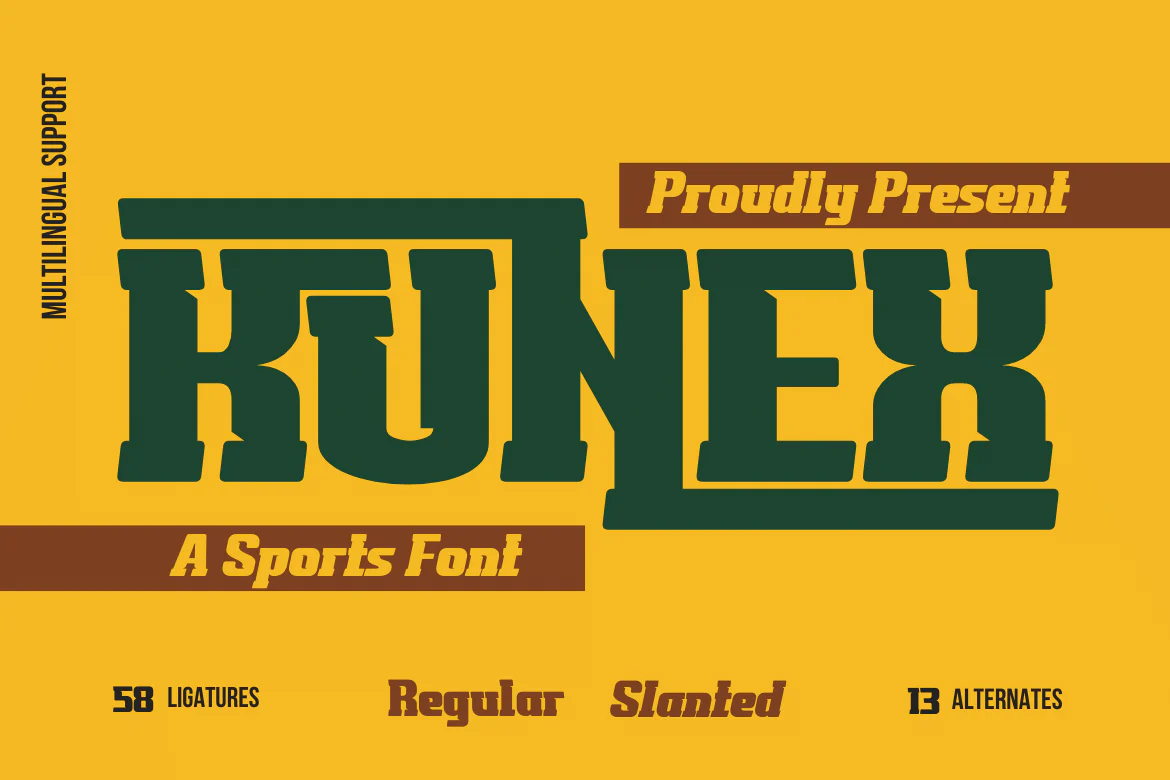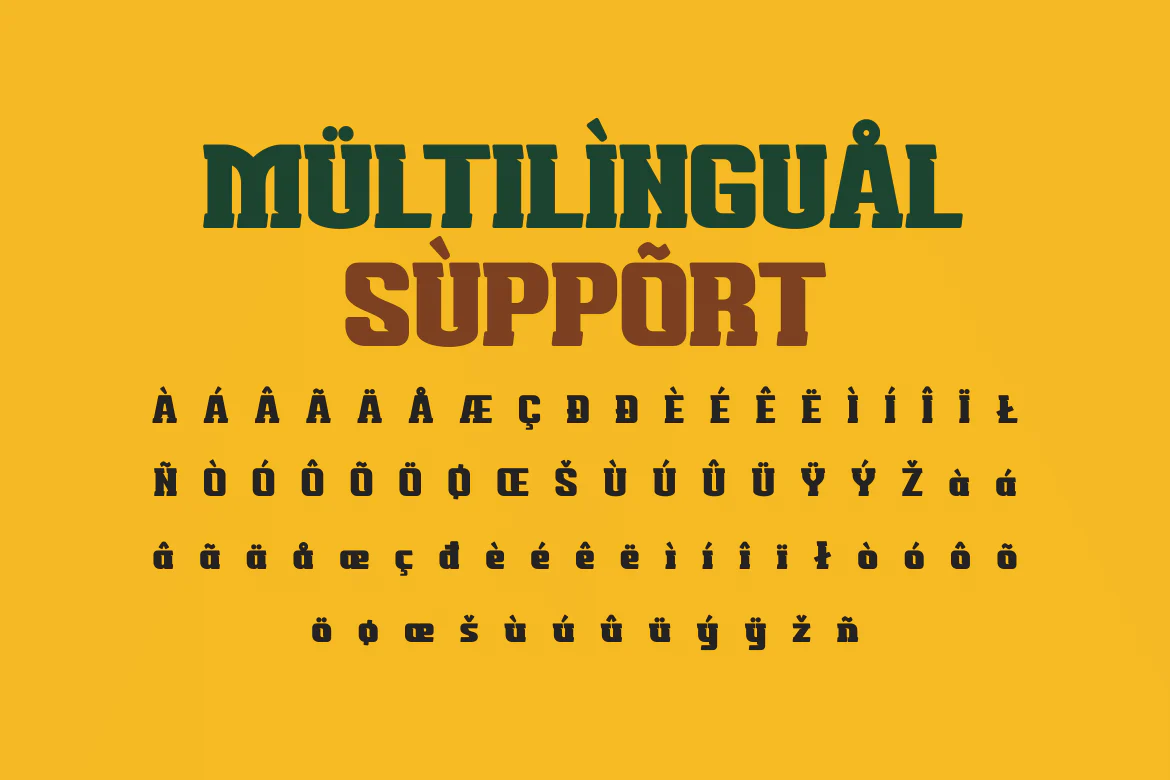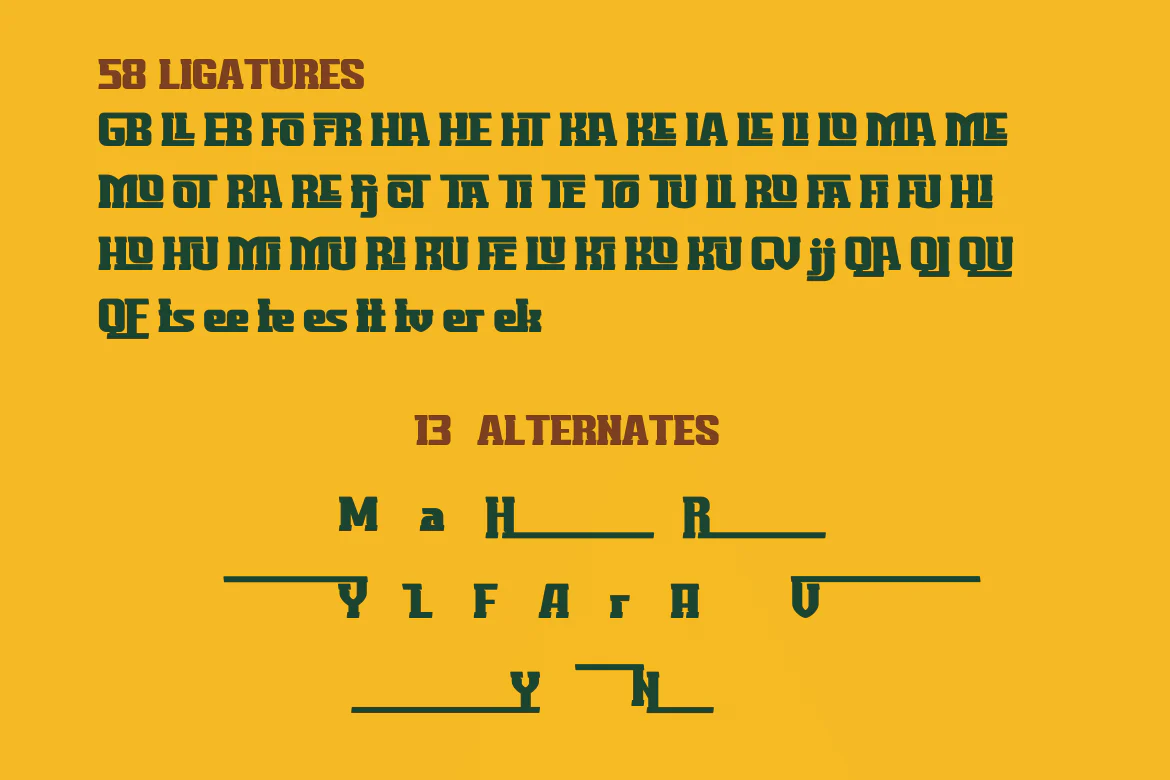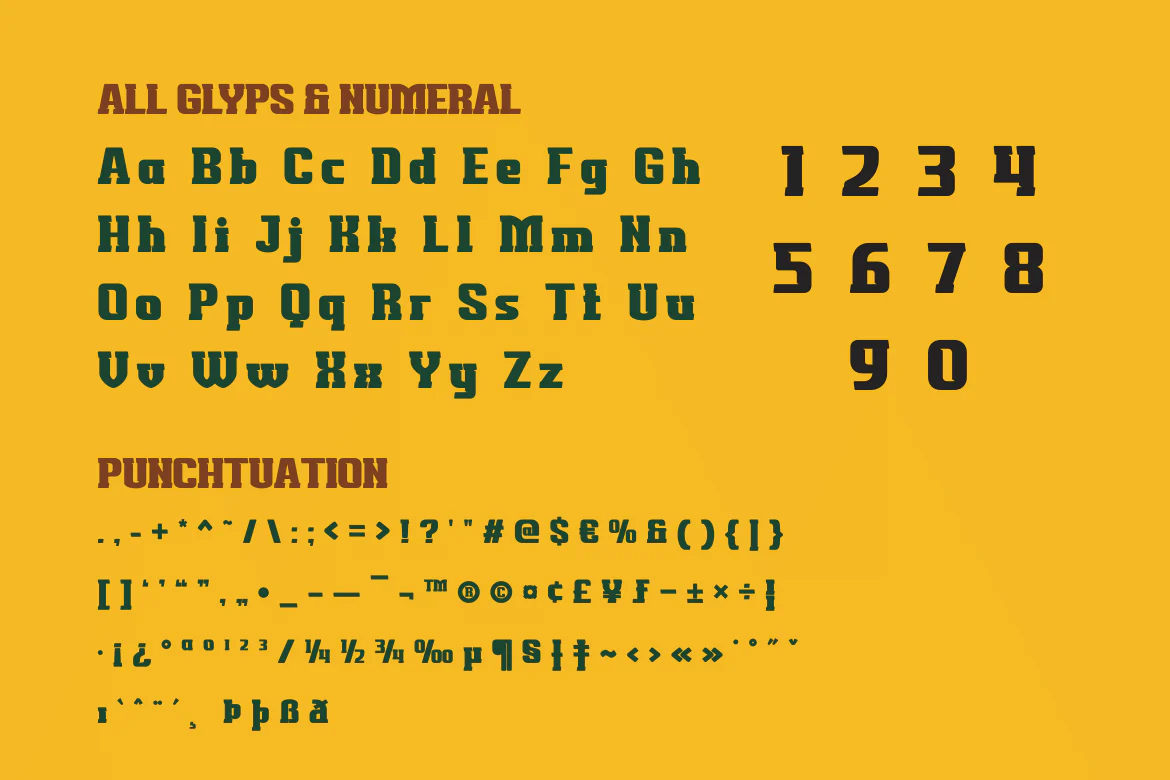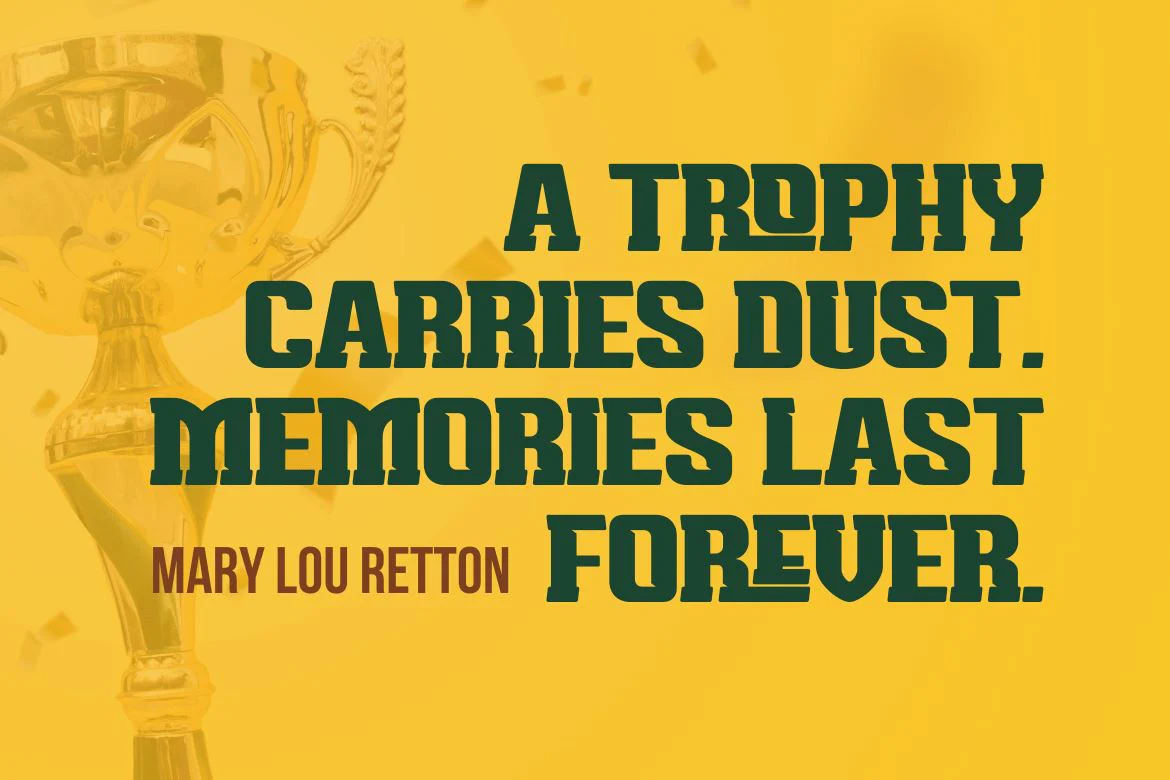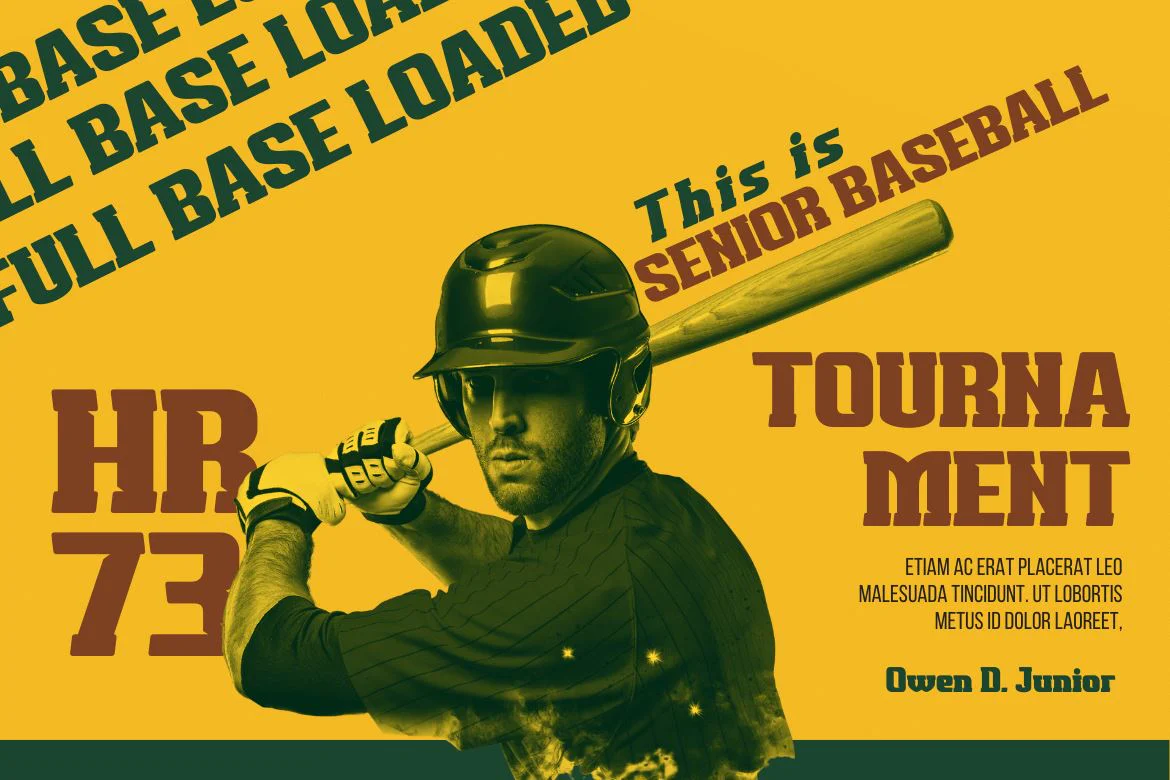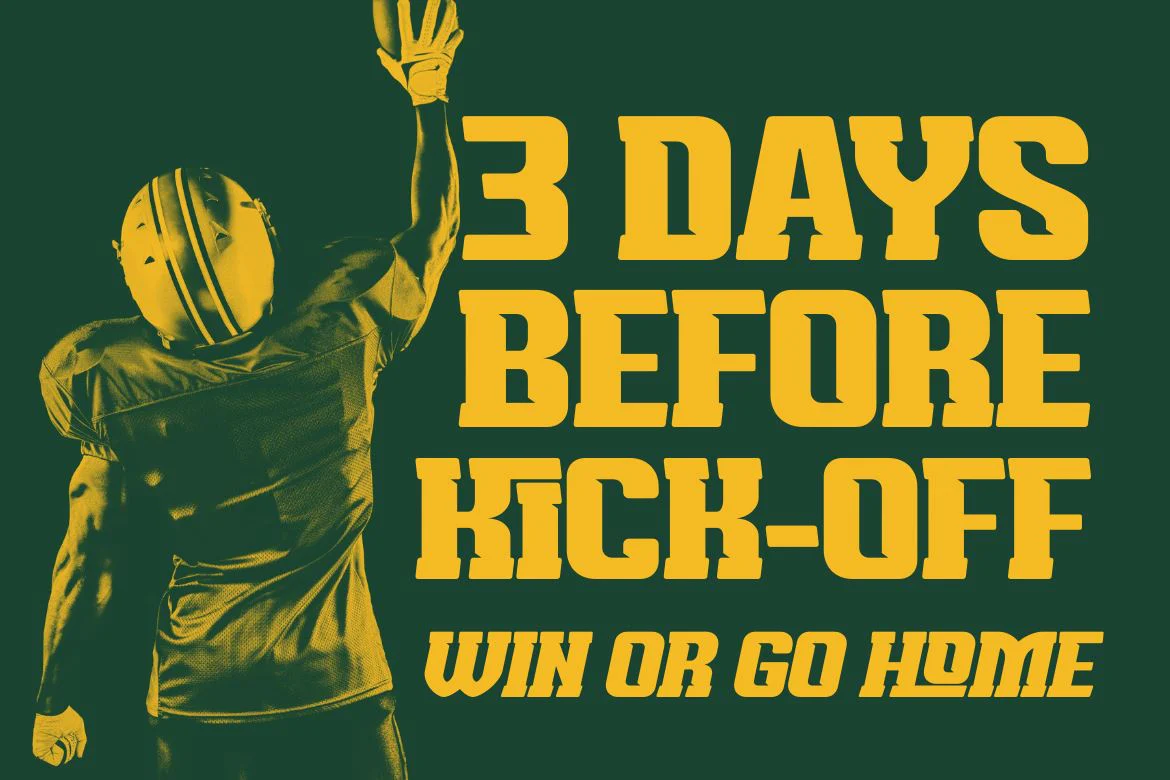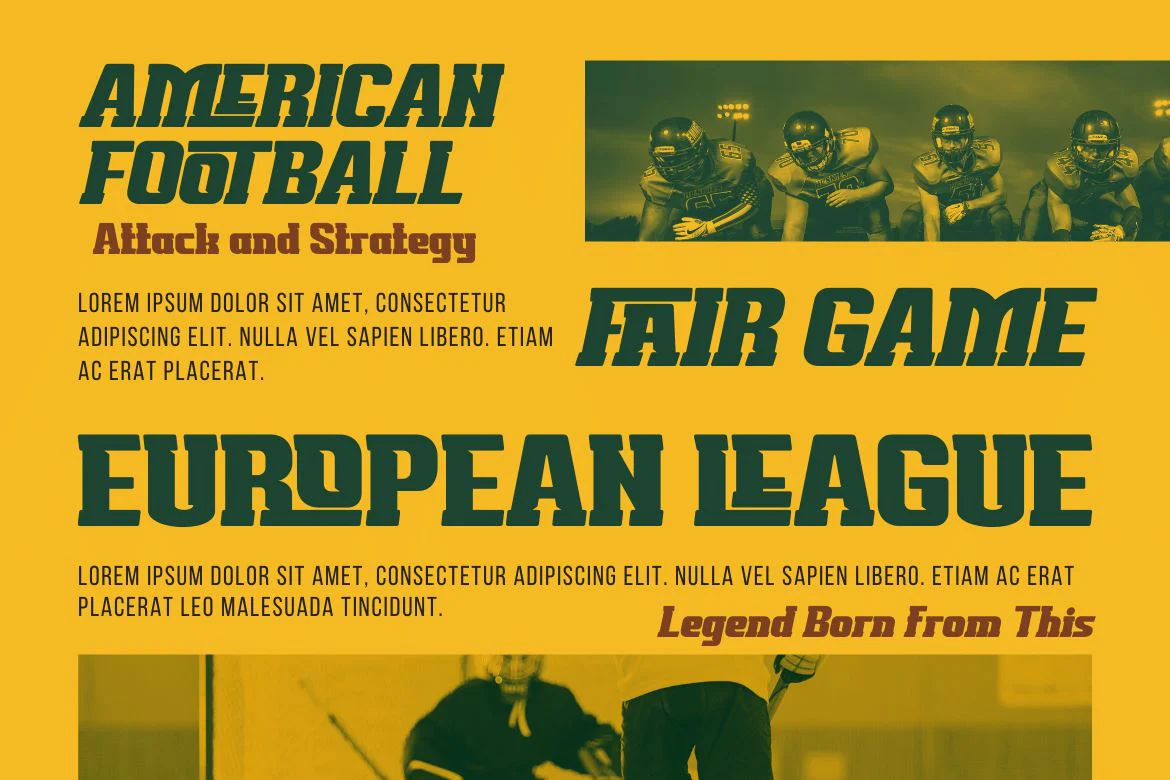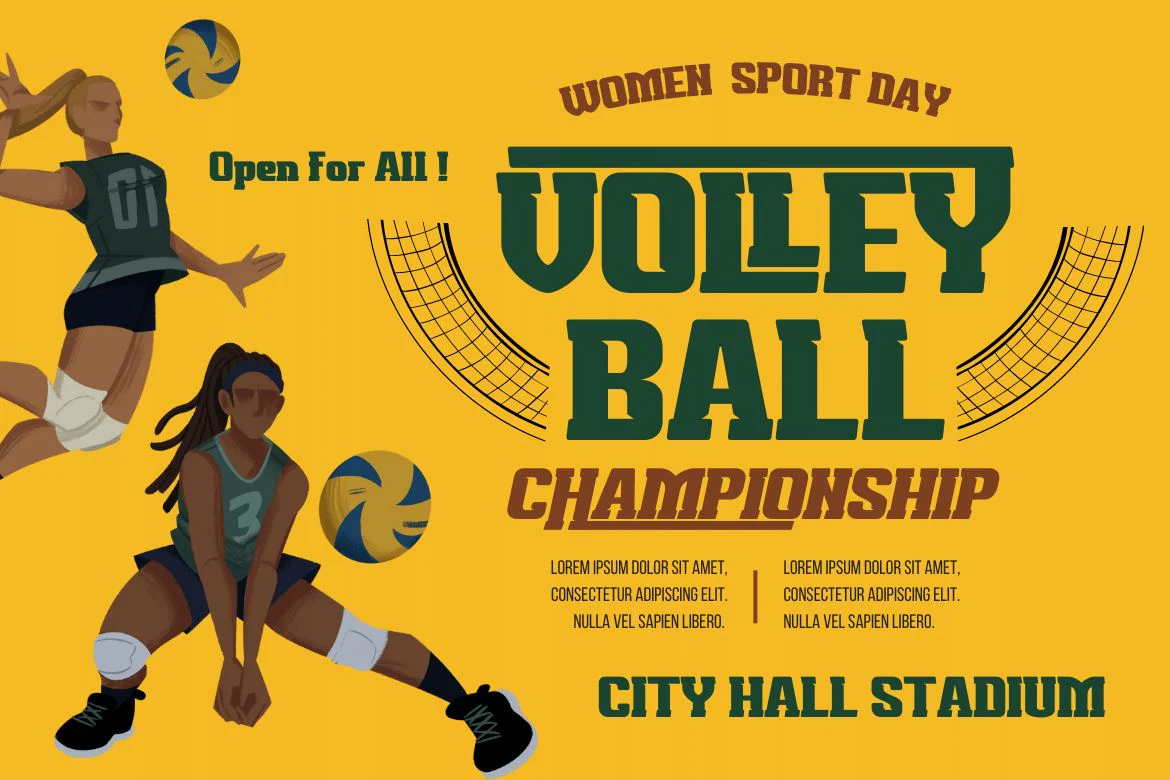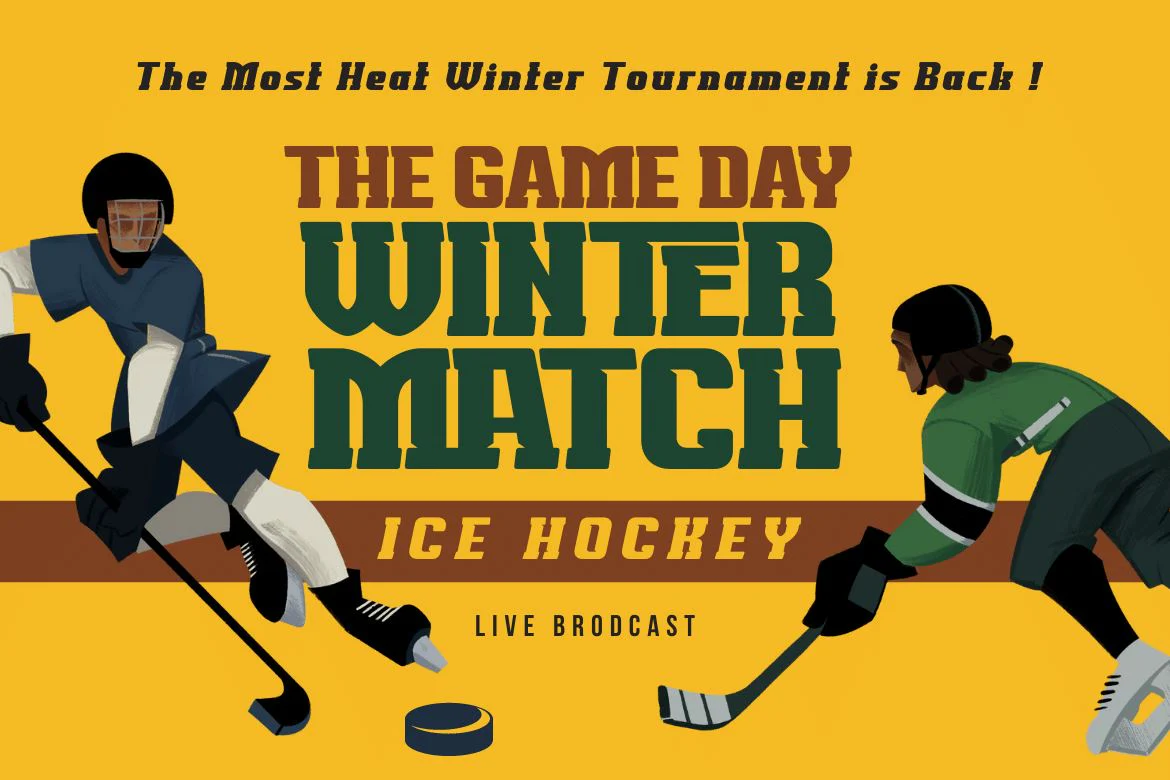
KUNEX | Athletic Font
The display font Kunex was created for outdoor sporting events and many other contemporary sports. A manly aesthetic with a sense of strength and speed may be brought to life with this modern slab shape and graceful tilt. It is perfect for contemporary logos and monograms for vehicles, sports, and other occasions. Kunex has a distinctive vitality in its concise form that, when written, has a rough and bold impression. At the same time, the typeface has been developed to adhere to precise letter-design principles to have a more natural feel than digital textures.